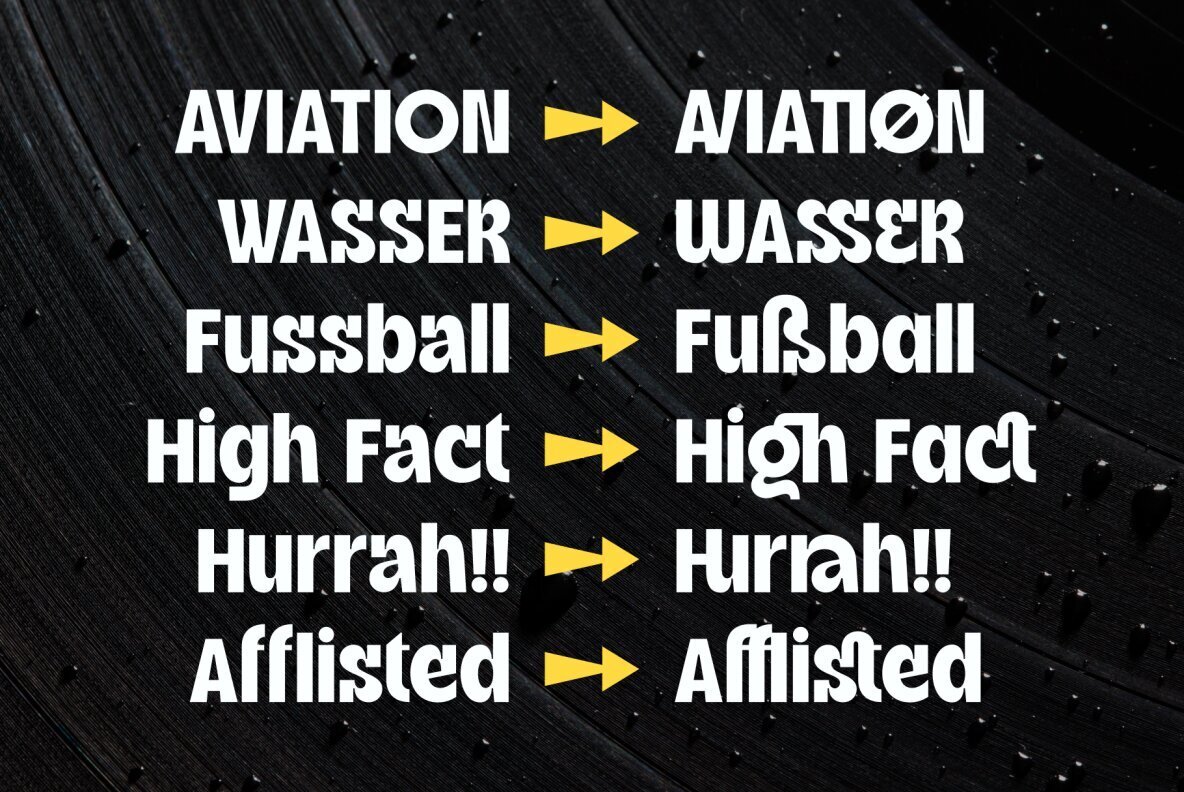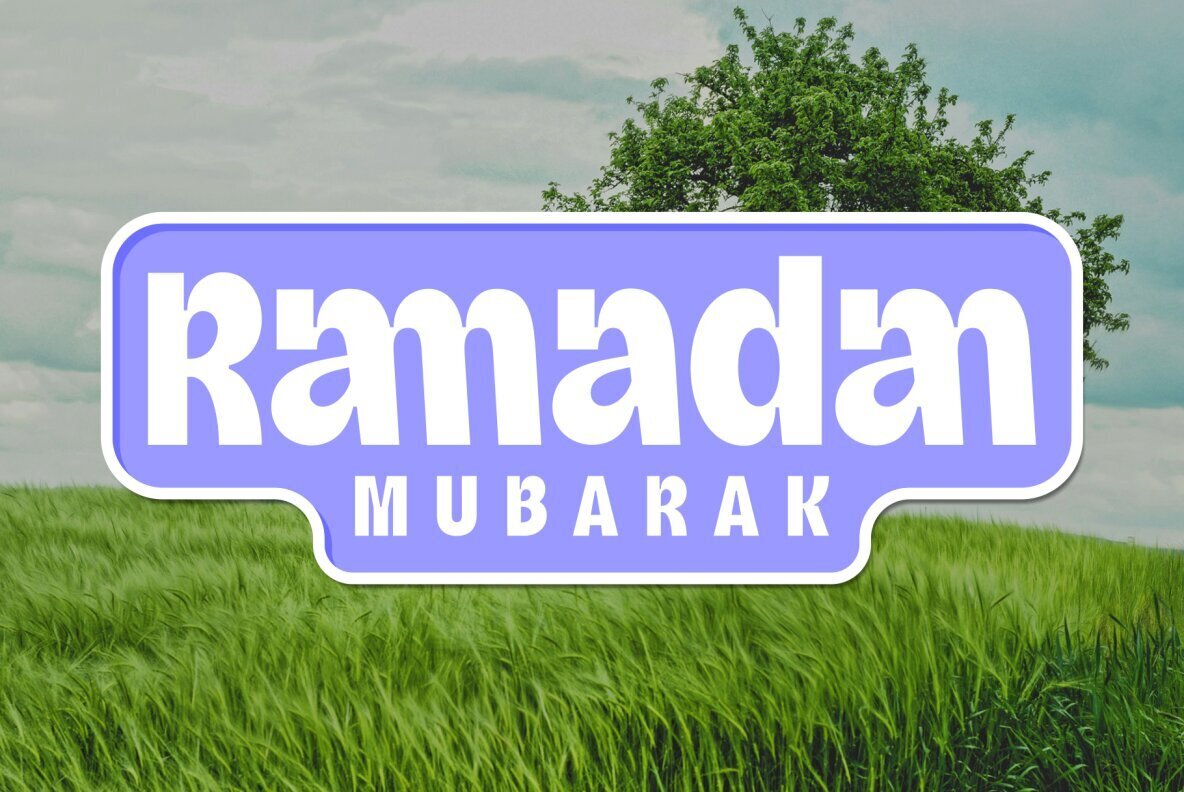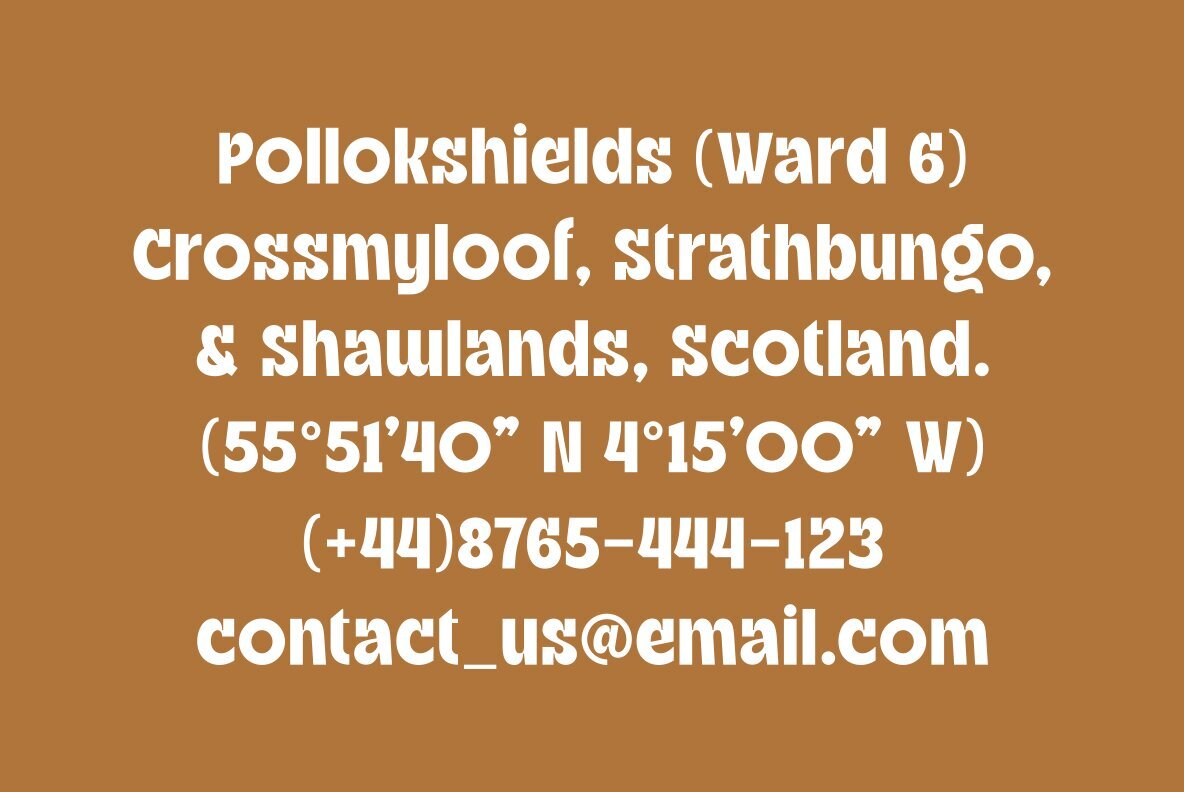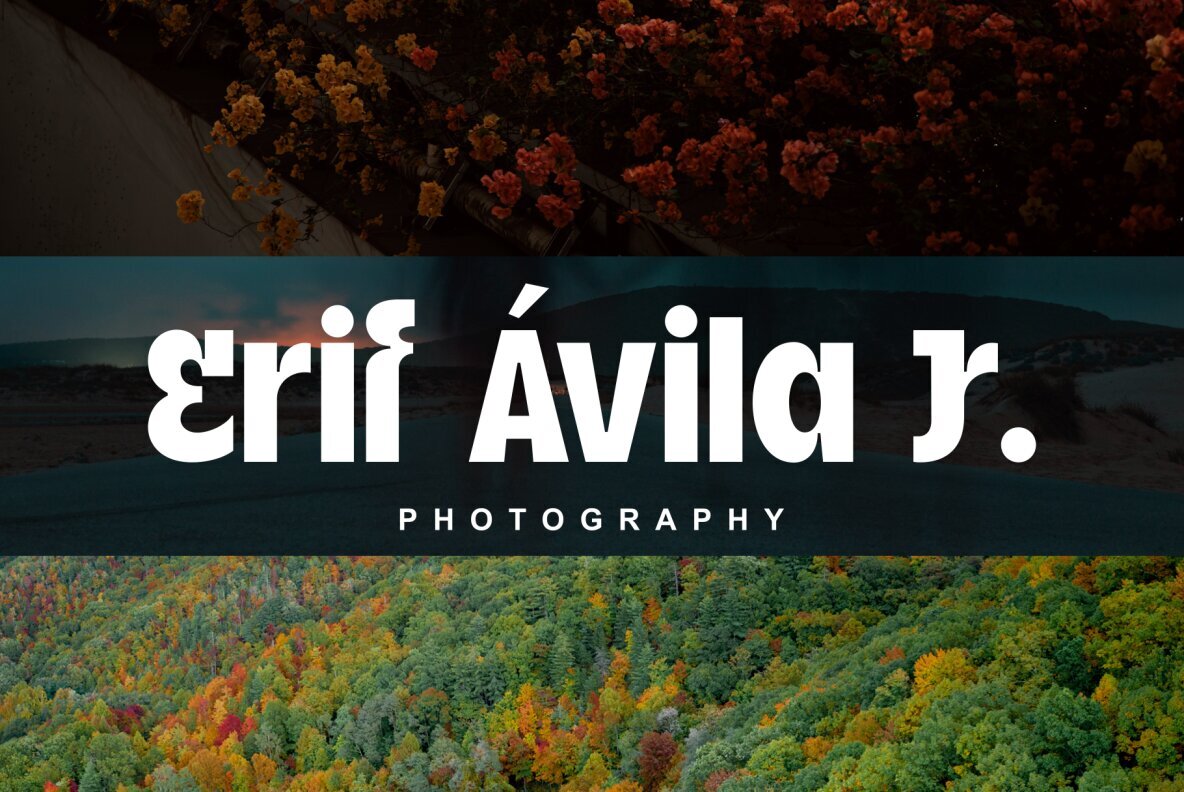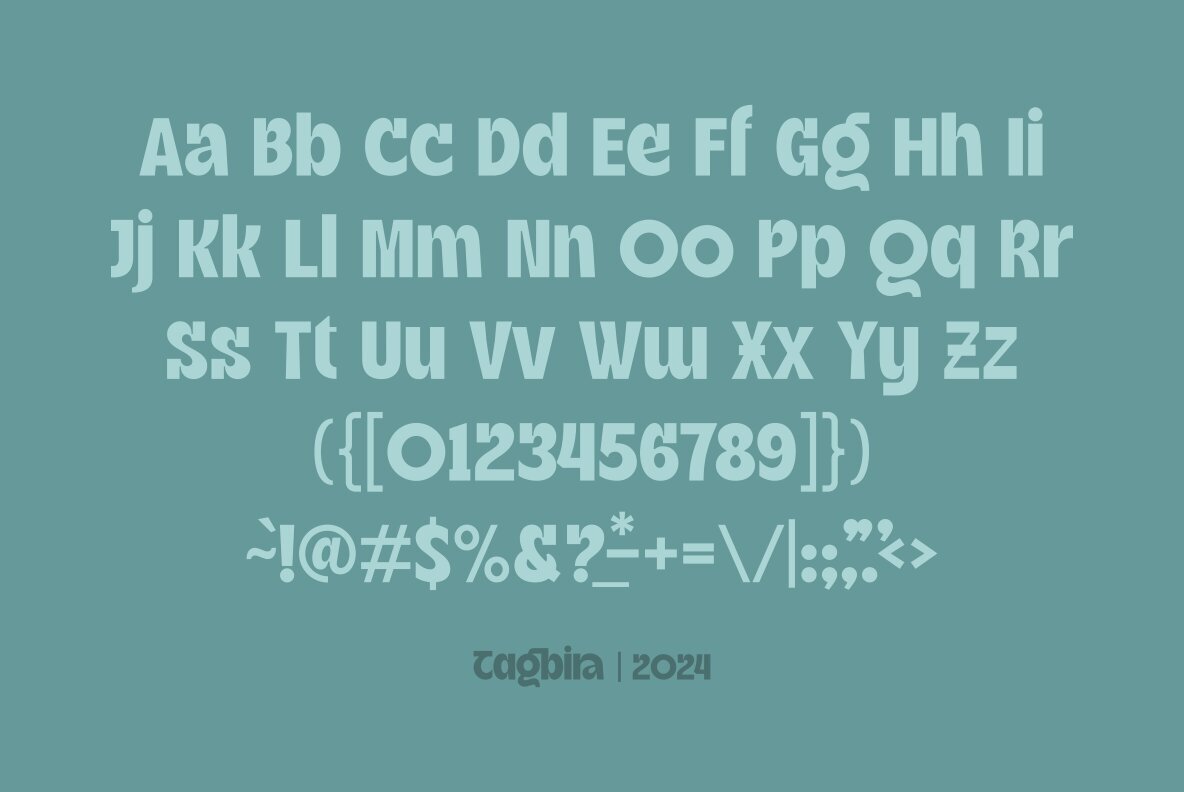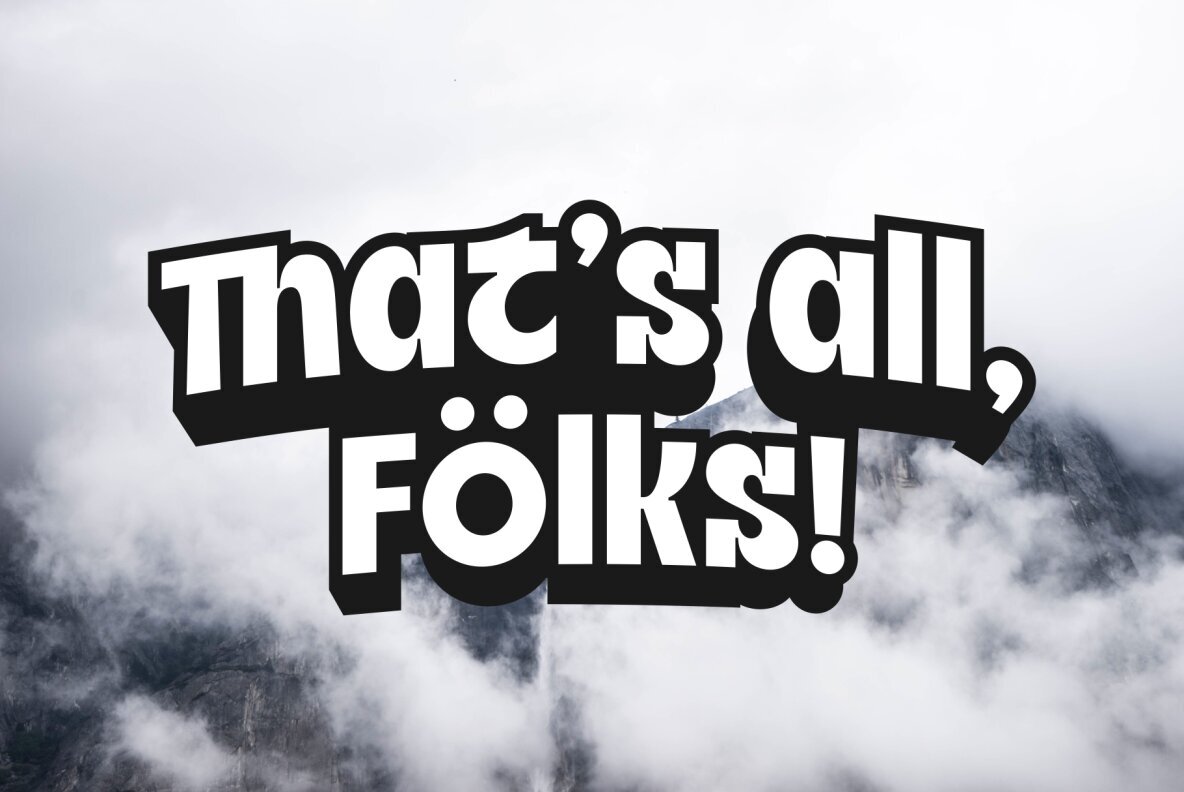
Tagbira Font
Tagbira Regular
Tagbira Italic
Introducing Tagbira, a bold sans serif font crafted with precision and attention to detail. This font combines both classic and modern aesthetics, making it a versatile choice for various design needs. Tagbira is expertly designed with smooth lines and curves to ensure high-quality digital craftsmanship. Whether you're creating a modern brand or a classic statement piece, Tagbira is your go-to font.Tagbira: Bold Sans Serif With Classic and Modern Appeal